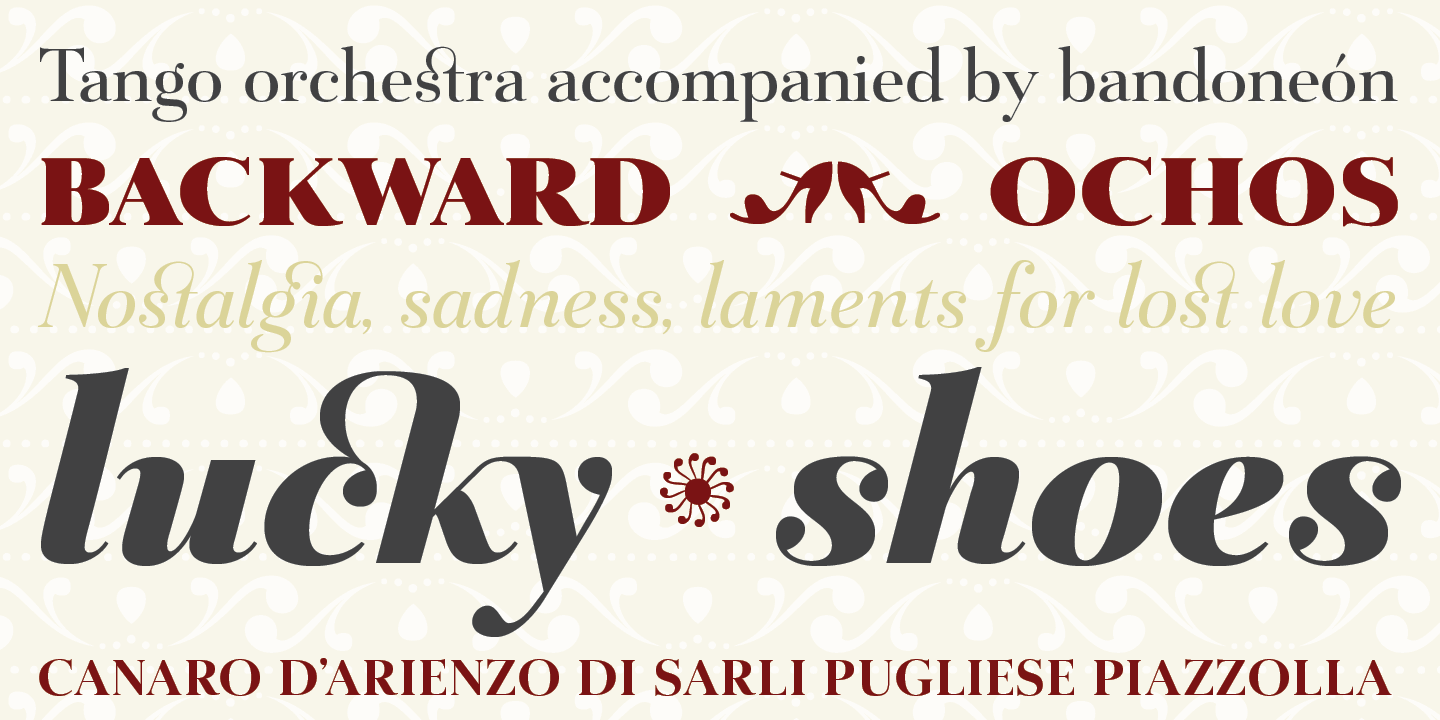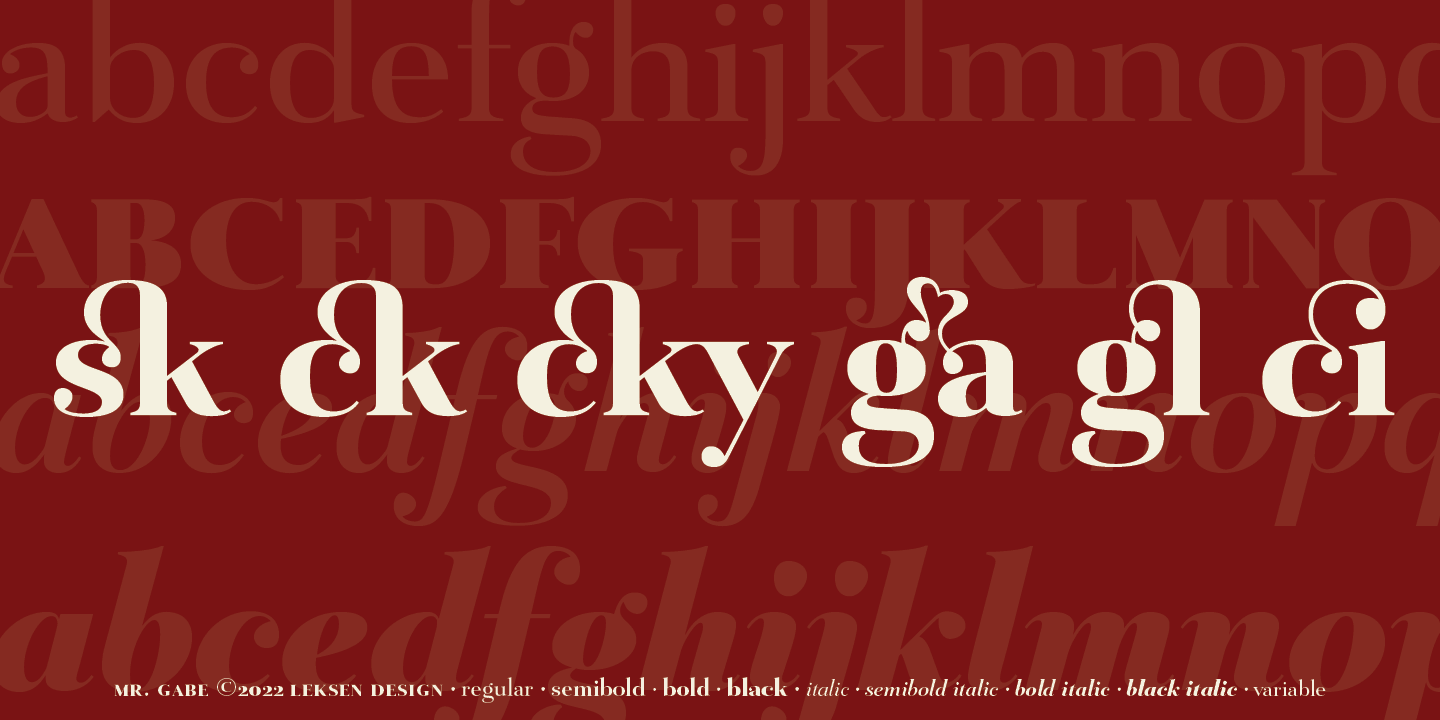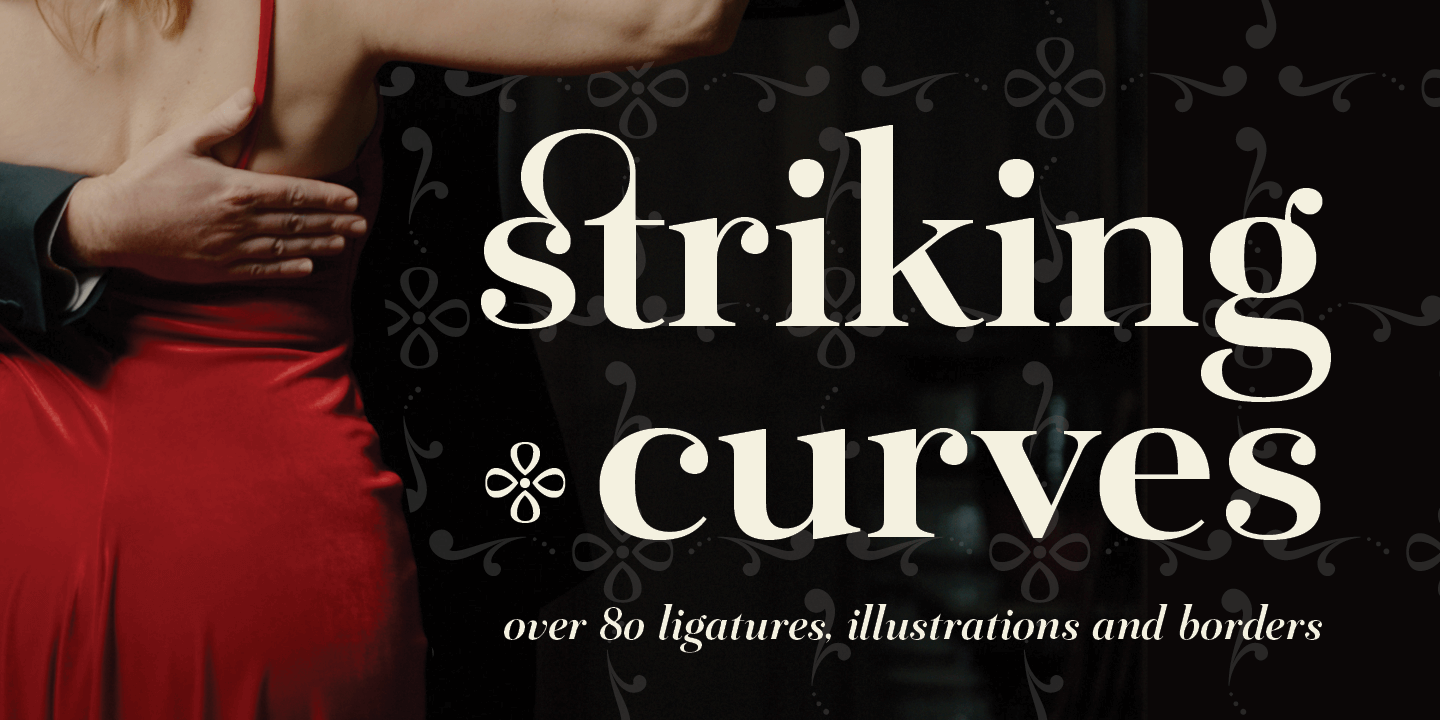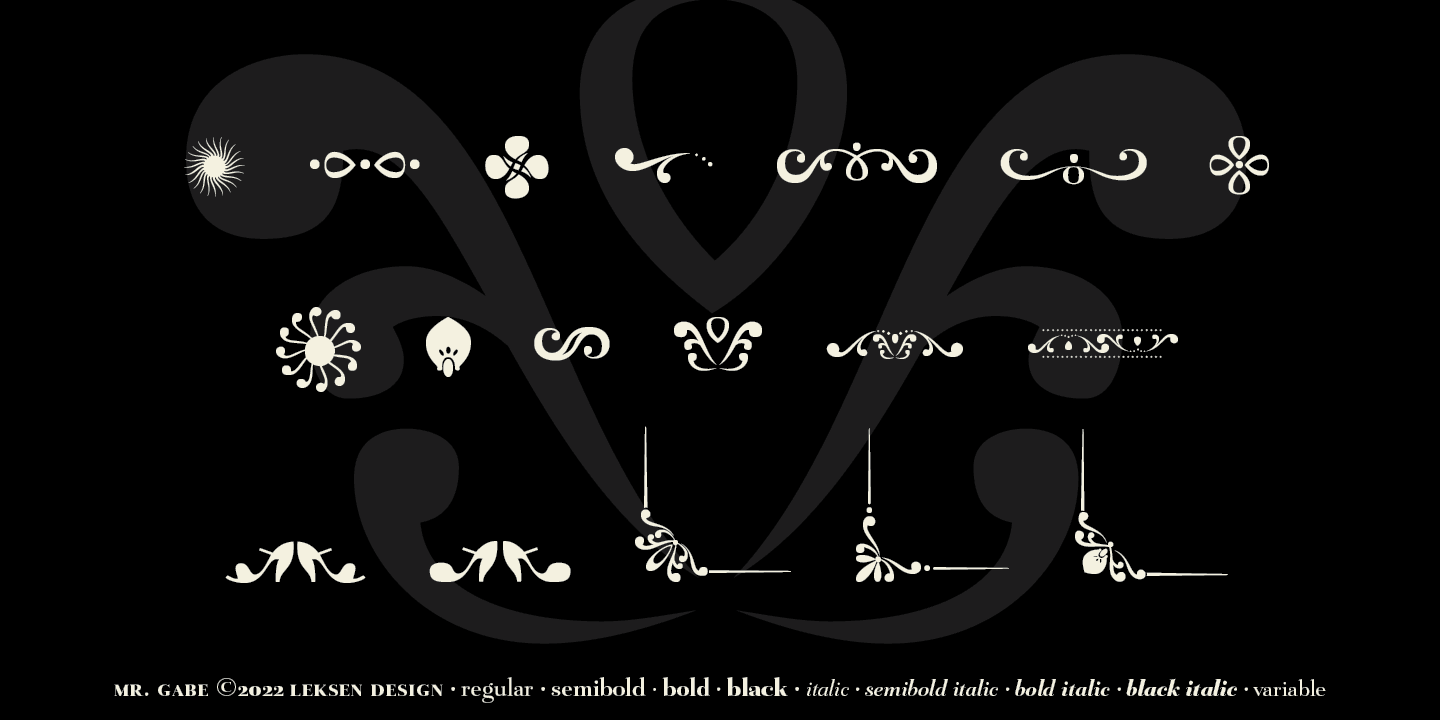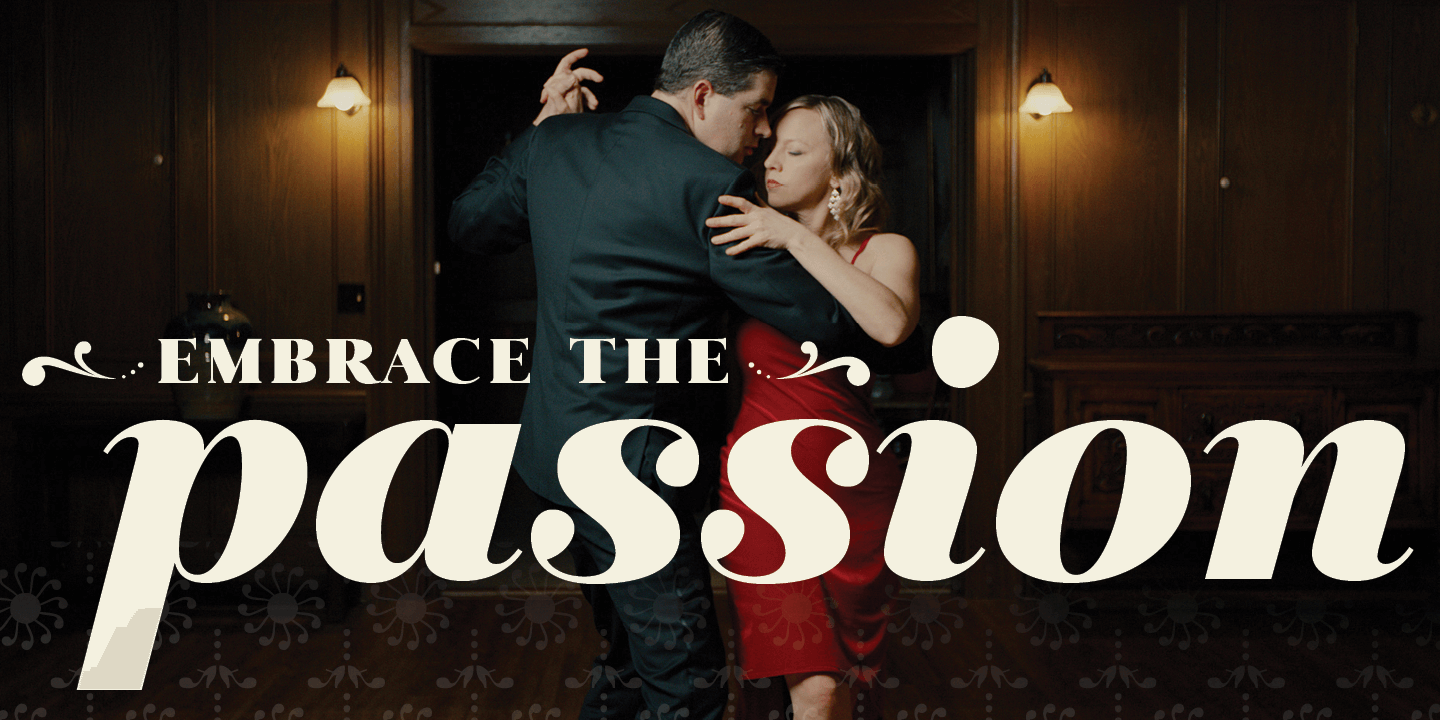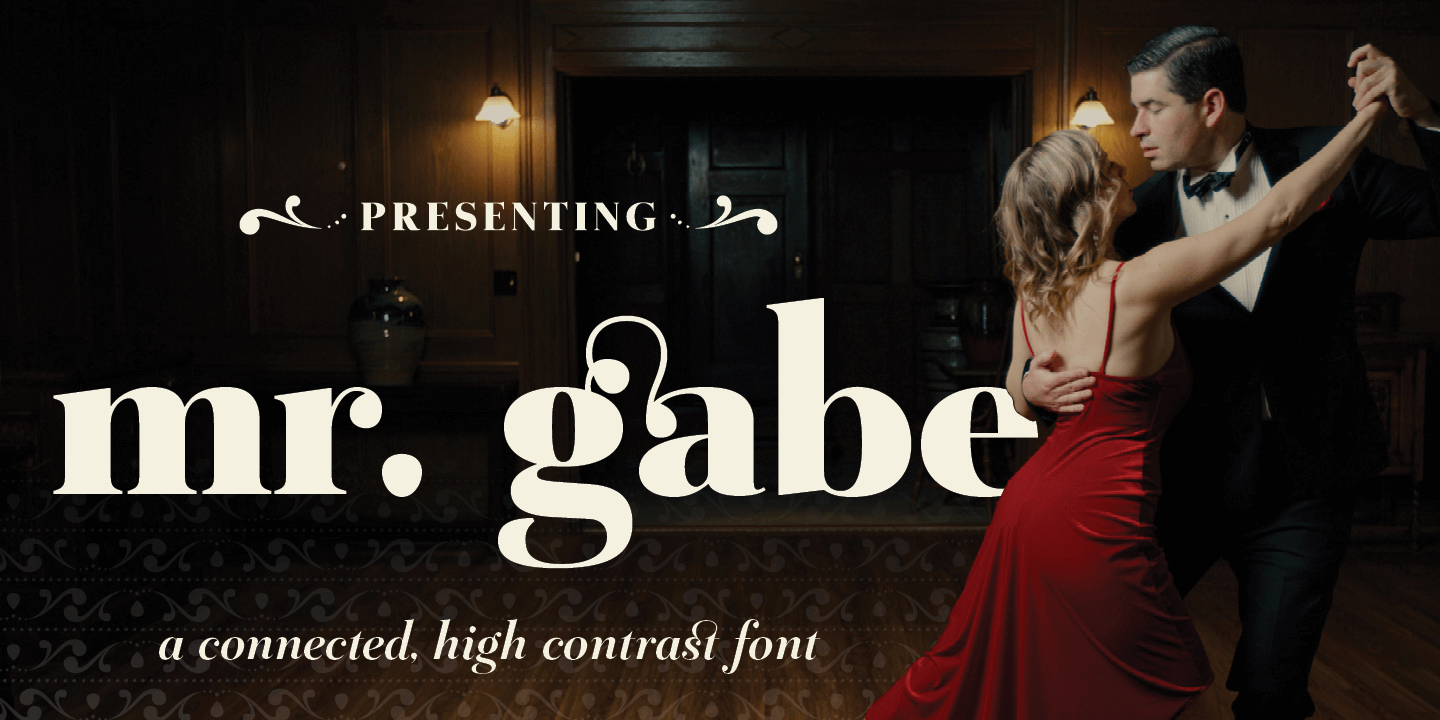
Mr Gabe
About Mr Gabe
Mr Gabe is a typeface designed to dance. Not that it's a flamboyant display face, but that it has a liveliness, especially in its heavier weights, that dances across the page. And the letters include a selection of exuberant flourishes that can be…